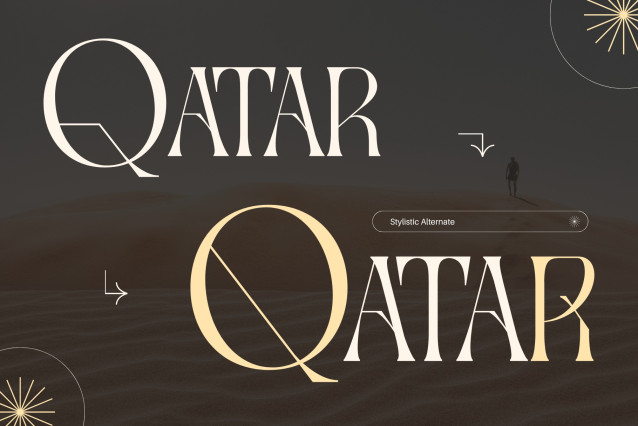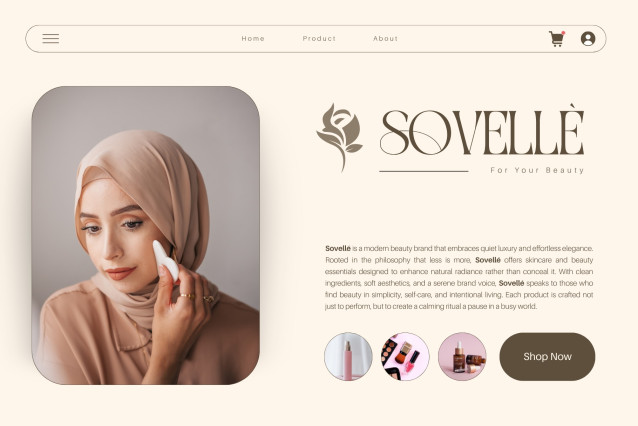
Gavona Elegant Font
Gavona Elegant Font is a modern serif typeface designed for timeless beauty and strong branding. With its subtle curves, style and high contrast, this font combines classic charm with a modern edge – perfect for logos, branding and editorial design. Available in Regular and Italic weights, this font offers versatility and sophistication, making any project look polished, professional and uniquely memorable.